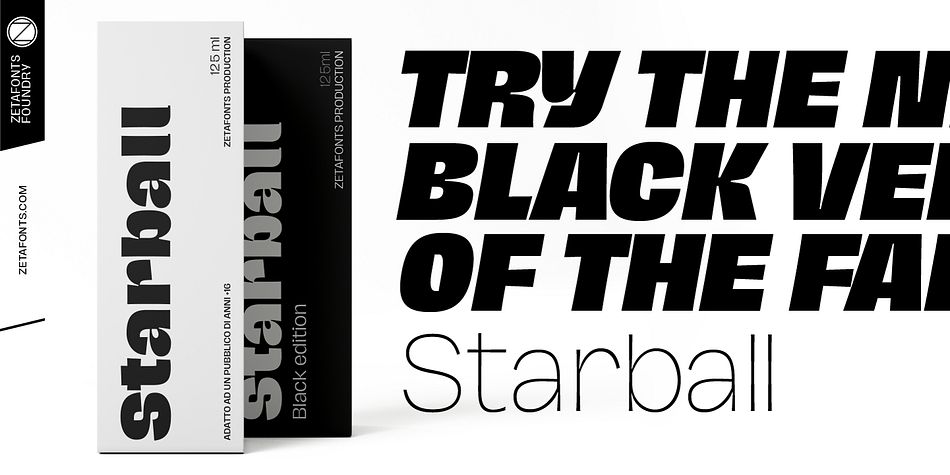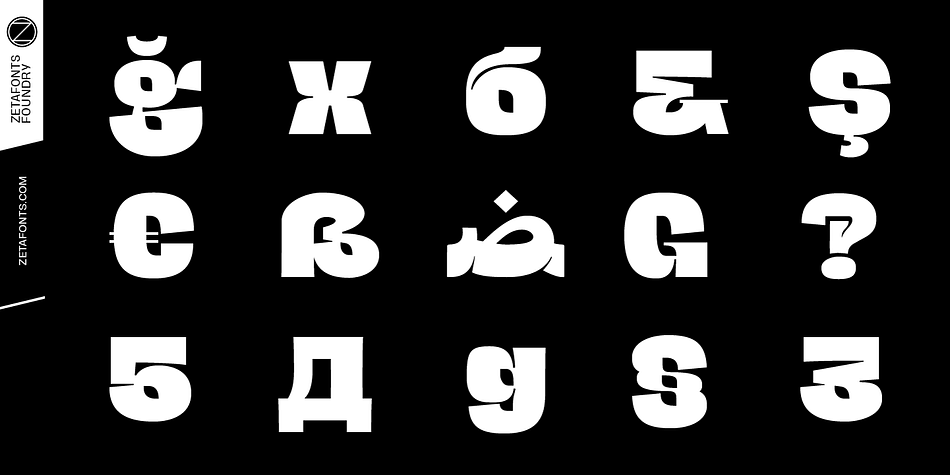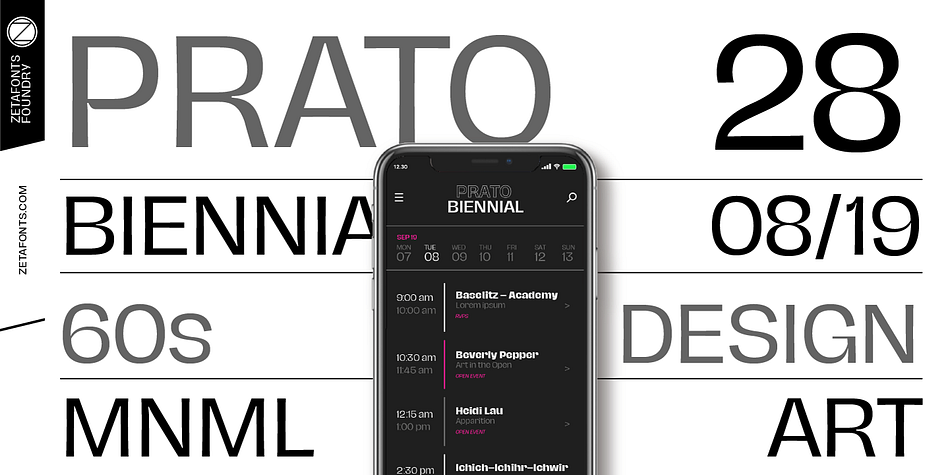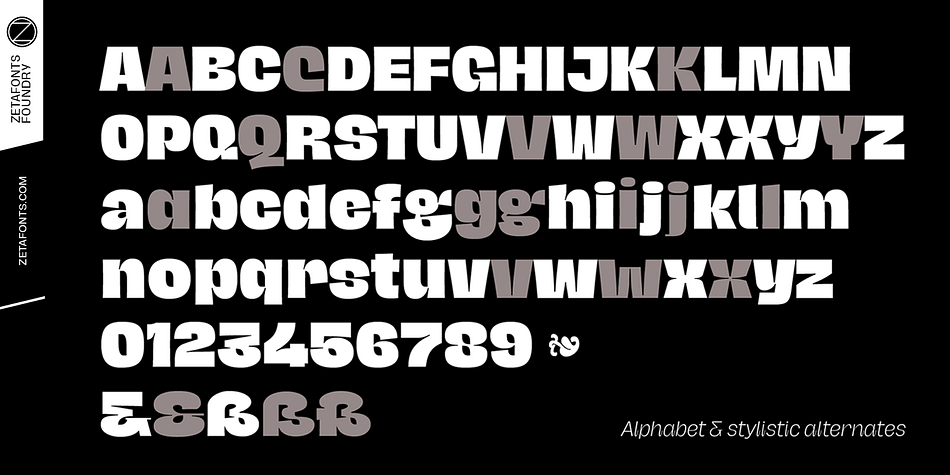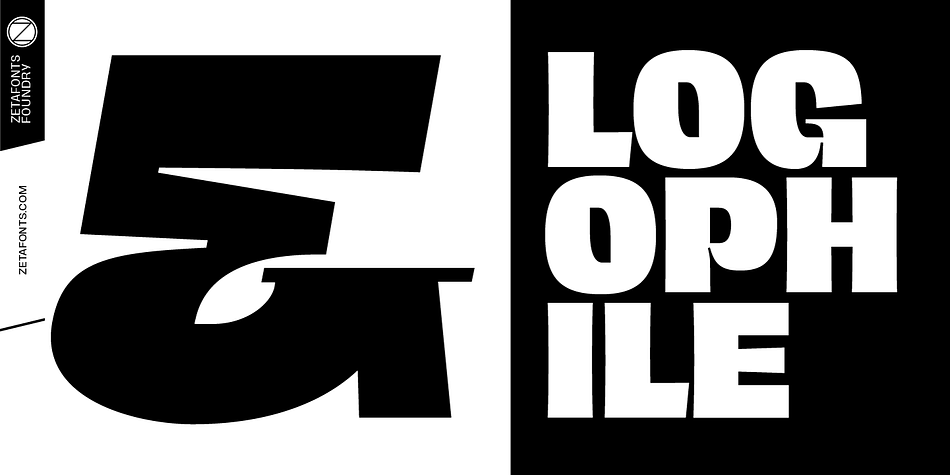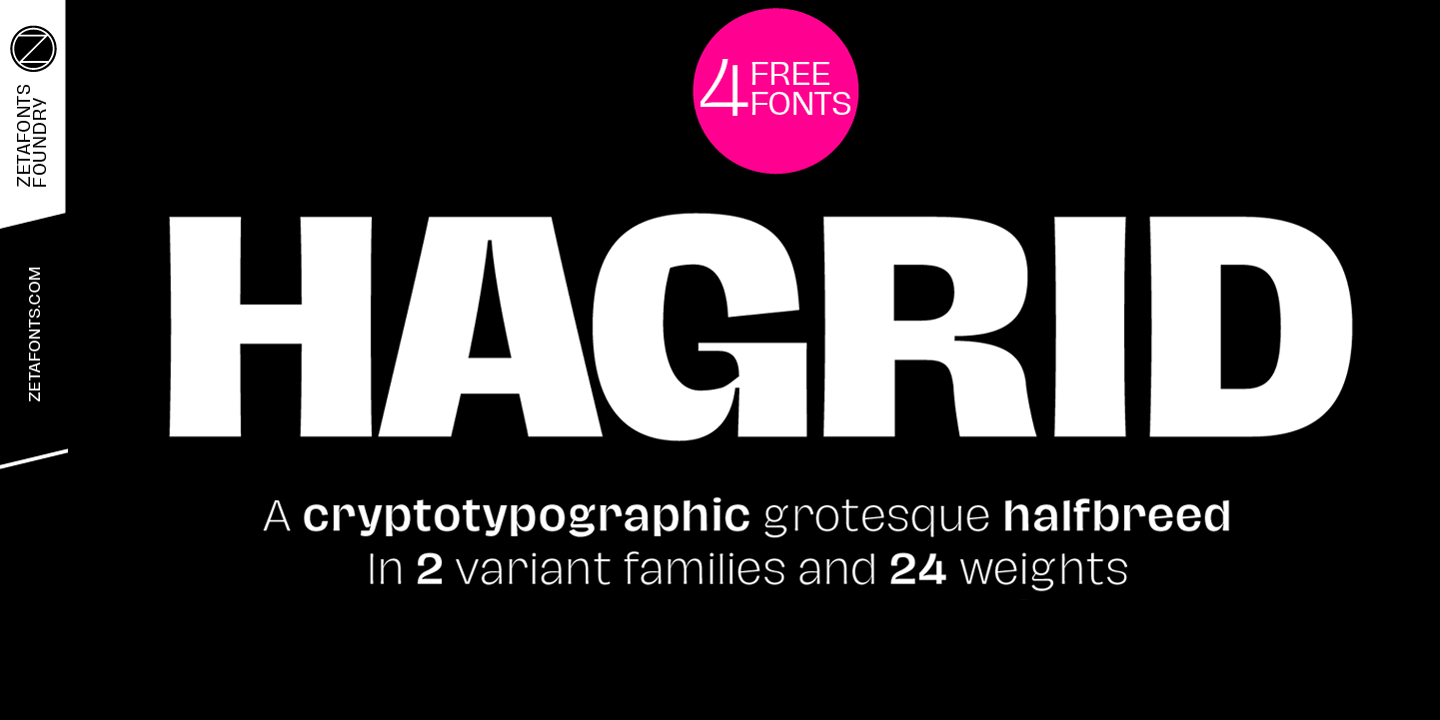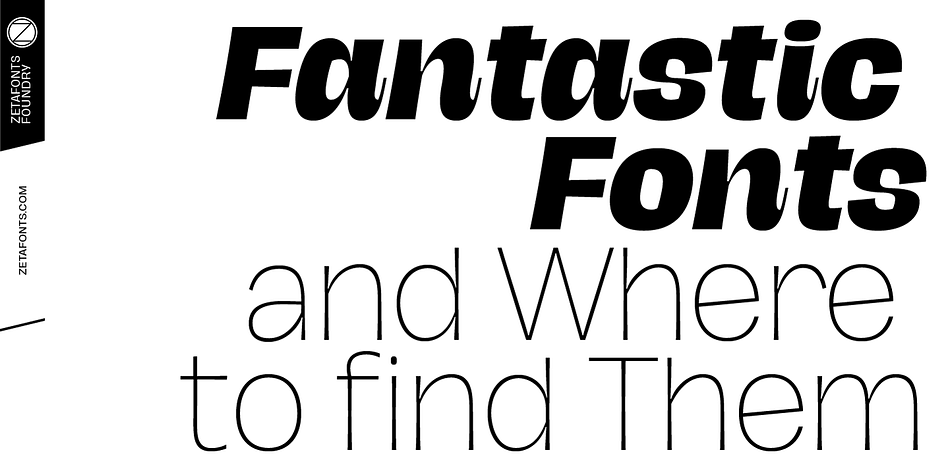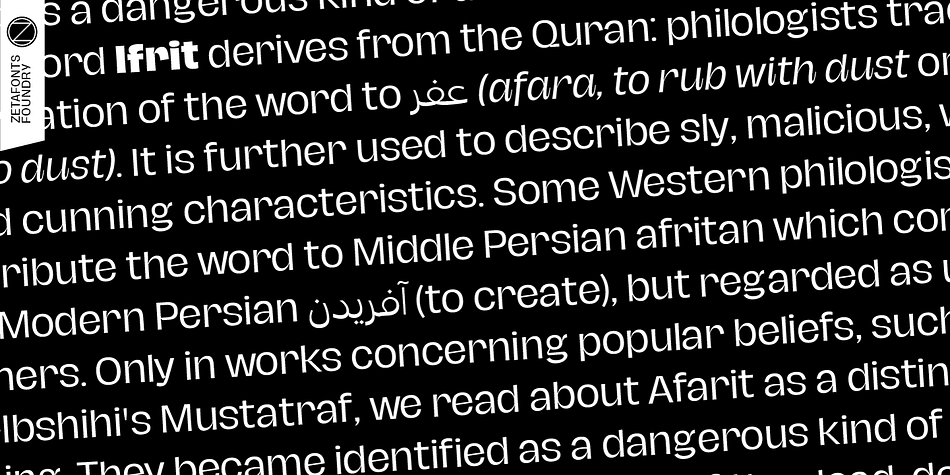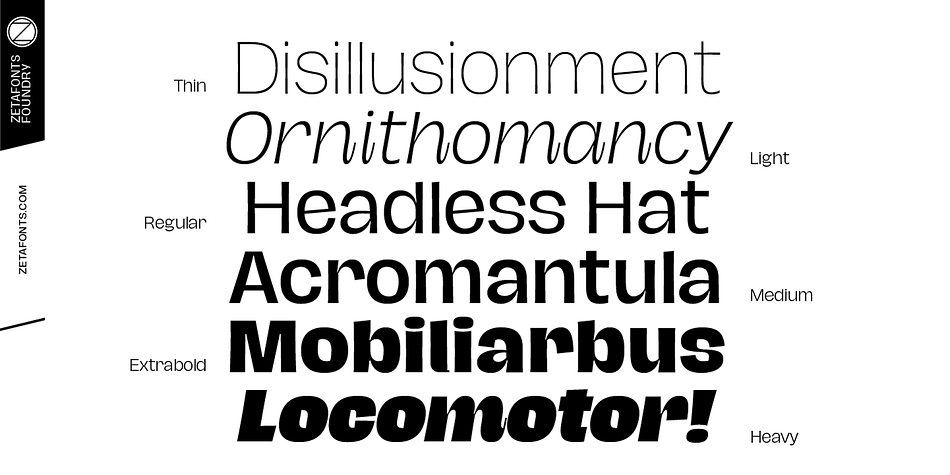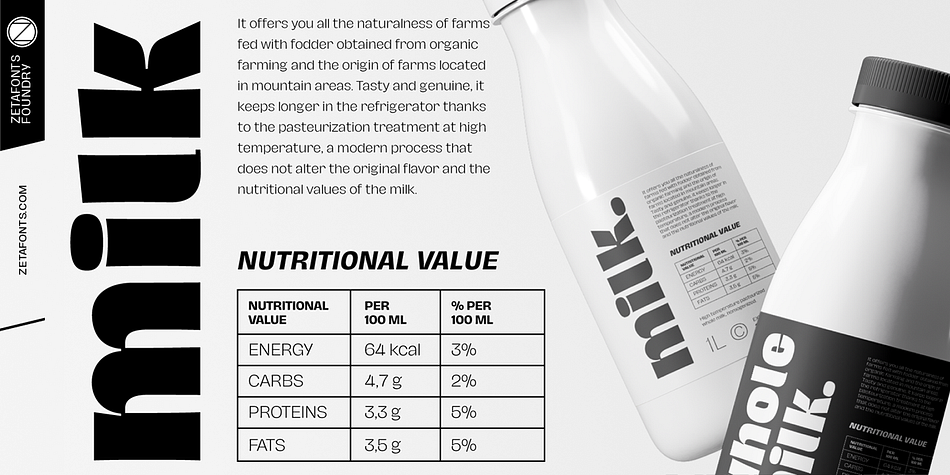
Designed by Cosimo Lorenzo Pancini, Hagrid is a display sans and sans serif font family. This typeface has twenty-four styles and was published by Zetafonts.
Crypto-typography - the passion for unknown, weird and unusual character shapes - is a disease commonly affecting type designers. Cosimo Lorenzo Pancini has celebrated it in this typeface family, aptly named Hagrid after the half-blood giant with a passion for cryptozoology described by R. K. Rowling in her Harry Potter books. Extreme optical corrections, calligraphic counter-spaces, inverted contrast, over-the-top overshoots: all the inventions that abound in vernacular and experimental typography have been lovingly collected in this mongrel sans serif family, carefully balancing quirky solutions and solid grotesque design.
Hagrid is a typeface designed for editorial & display use, bringing dynamism to the printed and digital page thanks to its extreme contrast and unique details. It has been developed in a range of six display weights ranging from the monolinear and more traditional thin to the expressive heavy weight. For better readability in small sizes and on the web, a companion text family has been developed, with a slightly different selection of weights, wider metrics, and fine adjustments to keep the dynamic expressivity of the design without sacrificing legibility. This is evident in the design of italics: while the display italics sport a cursive feel with calligraphic terminals to lowercase letters, the text design is more restrained, with a more classical geometric grotesque slanted look.
Given the crypto-typographer love for foreign specimens of letters, special care has been put into making Hagrid ready for multilingual projects, giving it an extended character sets covering over two hundred languages that use latin, cyrillic and arabic alphabets and adding a selected range of Open Type features to handle alternate forms and stylistic sets.